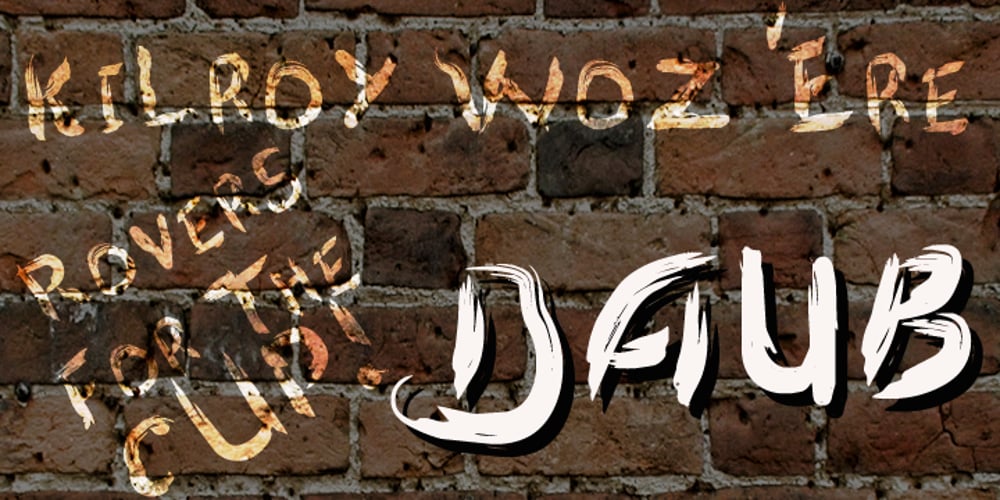
Daub
Daub font
Daub Font Family was designed by Paul James Lloyd and published by Greater Albion Typefounders. Daub contains 1 styles and family package options. Daub captures the look of old-style graffiti—it’s graffiti from the days when vandals used a brush and a pot of white paint. Not an airbrush or aerosol in sight. Use Daub to give headings and posters that rough, hand brushed look. Add real grit and vigor to your work, with that old-style urban hard edge.